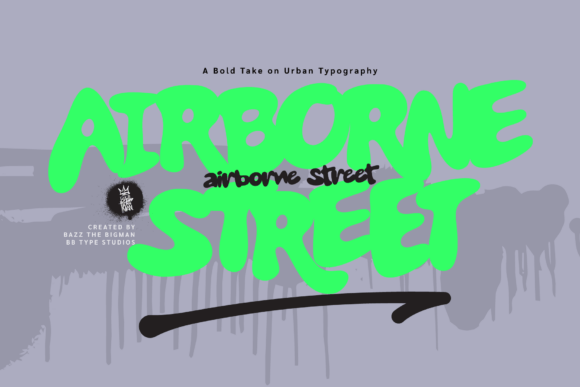
Unleash Urban Charm with Airborne Street Font
Have you ever been in the midst of a design project, and suddenly, it feels like something’s missing? You’re not quite sure what it is, but you know it’s essential to make your work pop. For me, that moment came when I was working on a streetwear branding project. I needed a font that embodied the dynamic energy of the streets, something that would make a bold statement. That’s when I stumbled upon Airborne Street, a quintessential bubble graffiti font that changed the game.
A Personal Encounter with Airborne Street
I was struggling to find the right font for my project, and then I saw Airborne Street. The soft allure of its rounded shapes combined with the relentless, audacious spirit of the streets immediately caught my attention. It was like the missing piece I had been searching for. This font seamlessly merges contrasting elements to create a striking visual vibe that’s impossible to ignore.
An Honest Review of Airborne Street
• ✨ Dynamic Energy: Airborne Street infuses your design with a dynamic energy that’s perfect for making a statement.
• ✅ Versatility: This font is ideal for various design projects, including streetwear branding, eye-catching posters, punchy social media graphics, edgy album covers, or innovative packaging designs.
• 💥 High Visual Impact: Each letter adds character and high visual impact to your design project, ensuring it stands out.
While Airborne Street is an amazing font, there are a few things to keep in mind:
• 🤔 Legibility at Small Sizes: Like many graffiti fonts, Airborne Street may lose legibility at very small sizes. It’s best used at larger sizes where its details can shine.
• ⚠️ Overuse: Due to its bold nature, overusing Airborne Street in a single design can be overwhelming. Balance it with simpler fonts for optimal results.
The Backstory of Airborne Street
Airborne Street was inspired by the vibrant street art scene in urban cities. Its designer aimed to capture the essence of graffiti’s dynamic energy and boldness while making it accessible for commercial use. The result is a font that embodies the urban charm and audacious spirit of the streets.
Q: What makes Airborne Street unique?
A: Airborne Street combines the soft allure of rounded shapes with the bold, audacious spirit of graffiti, making it uniquely versatile and eye-catching.
Q: Is Airborne Street suitable for body text?
A: Due to its bold and decorative nature, Airborne Street is best used for headlines and short text sections. For body text, consider pairing it with a simpler, more readable font.
Q: Does Airborne Street support OpenType features?
A: Yes, Airborne Street supports OpenType features, including stylistic alternates and glyphs, allowing for a high degree of customization and creativity in your designs.